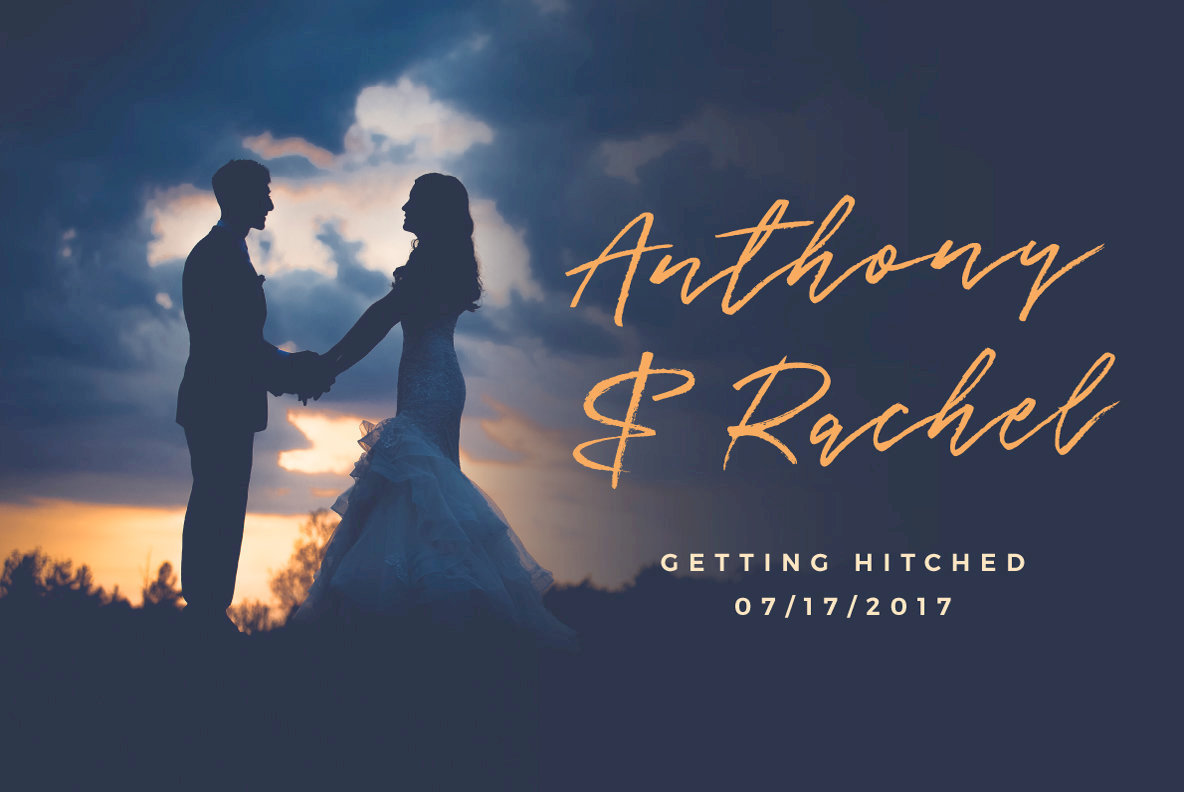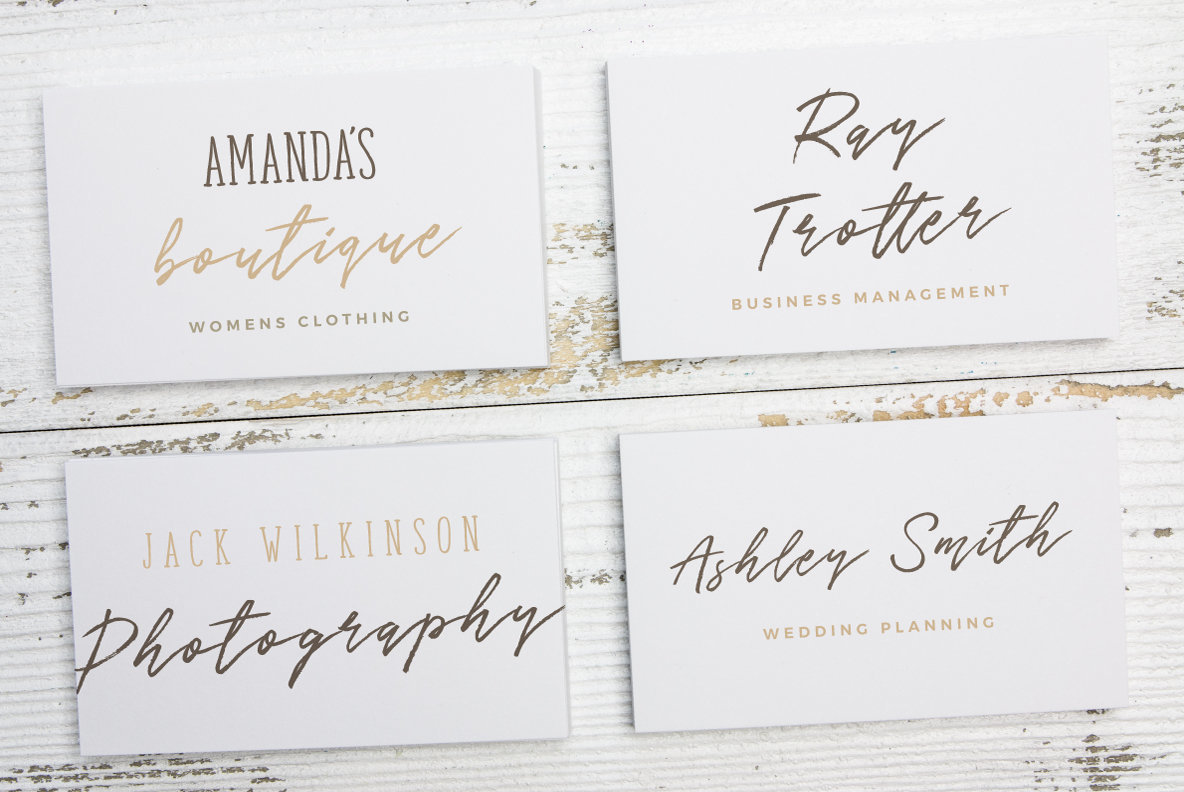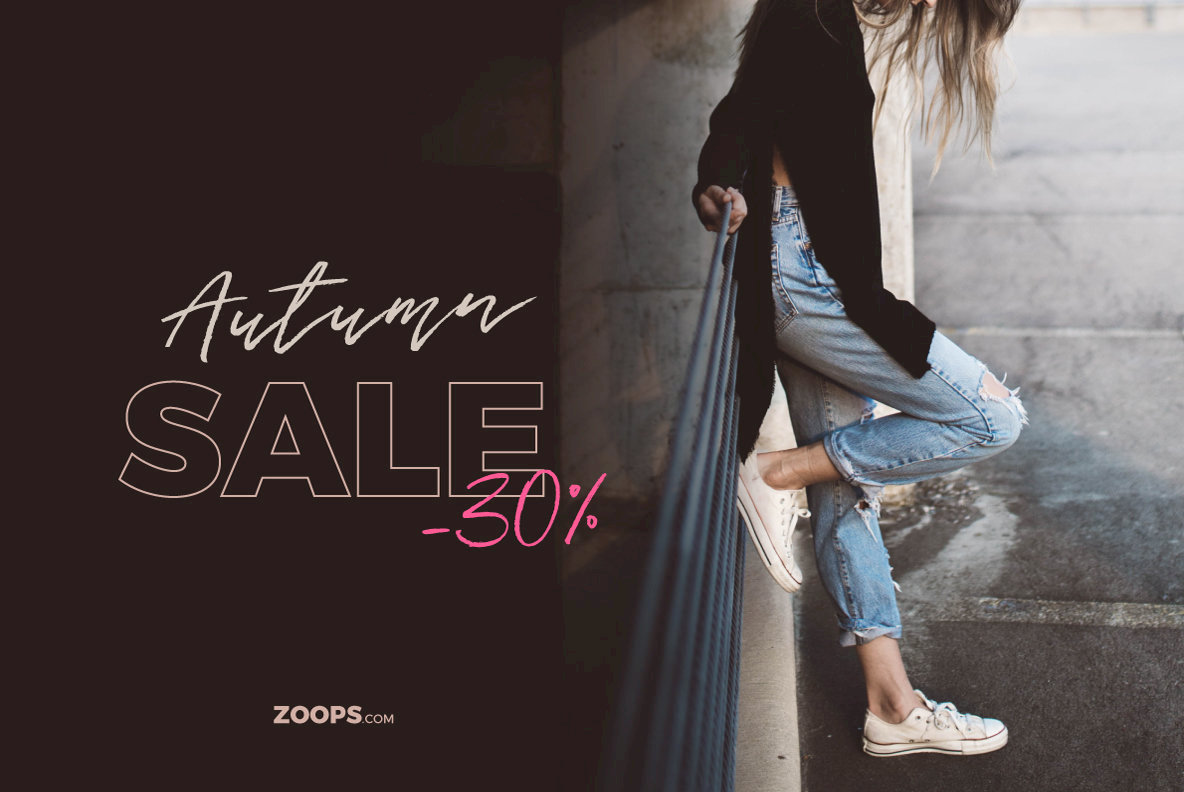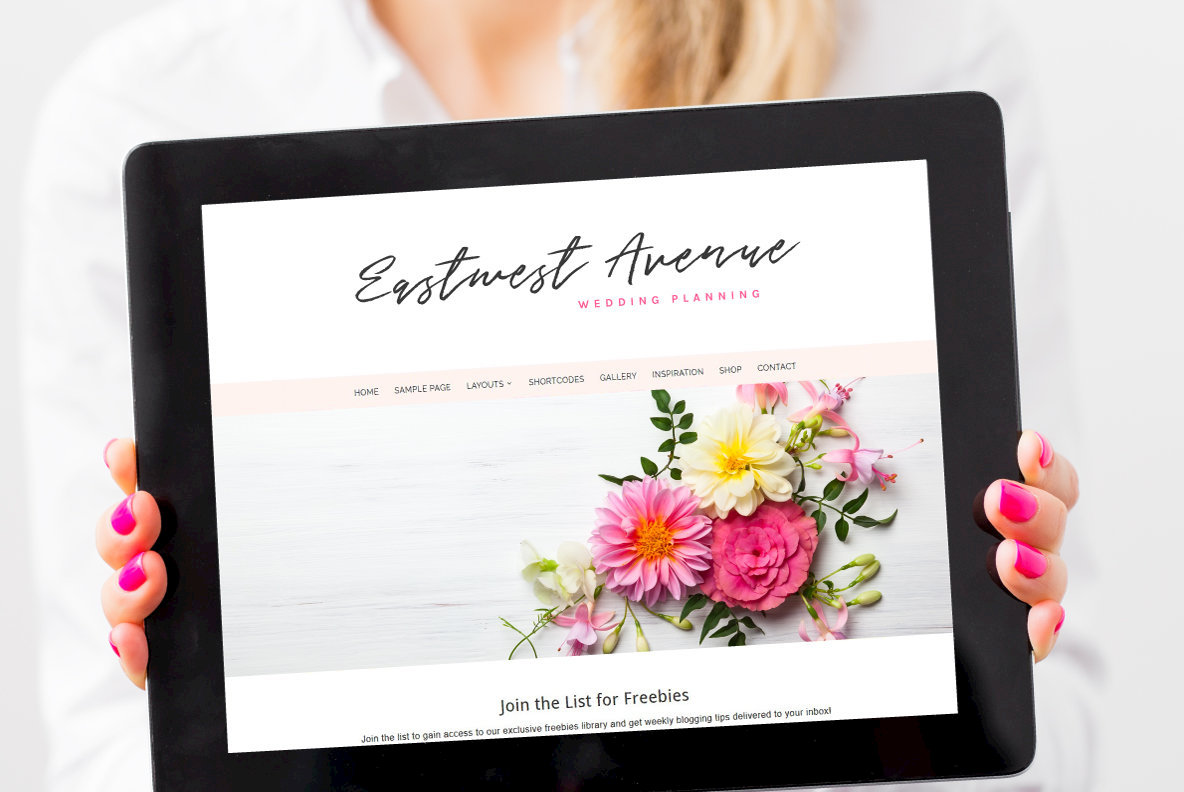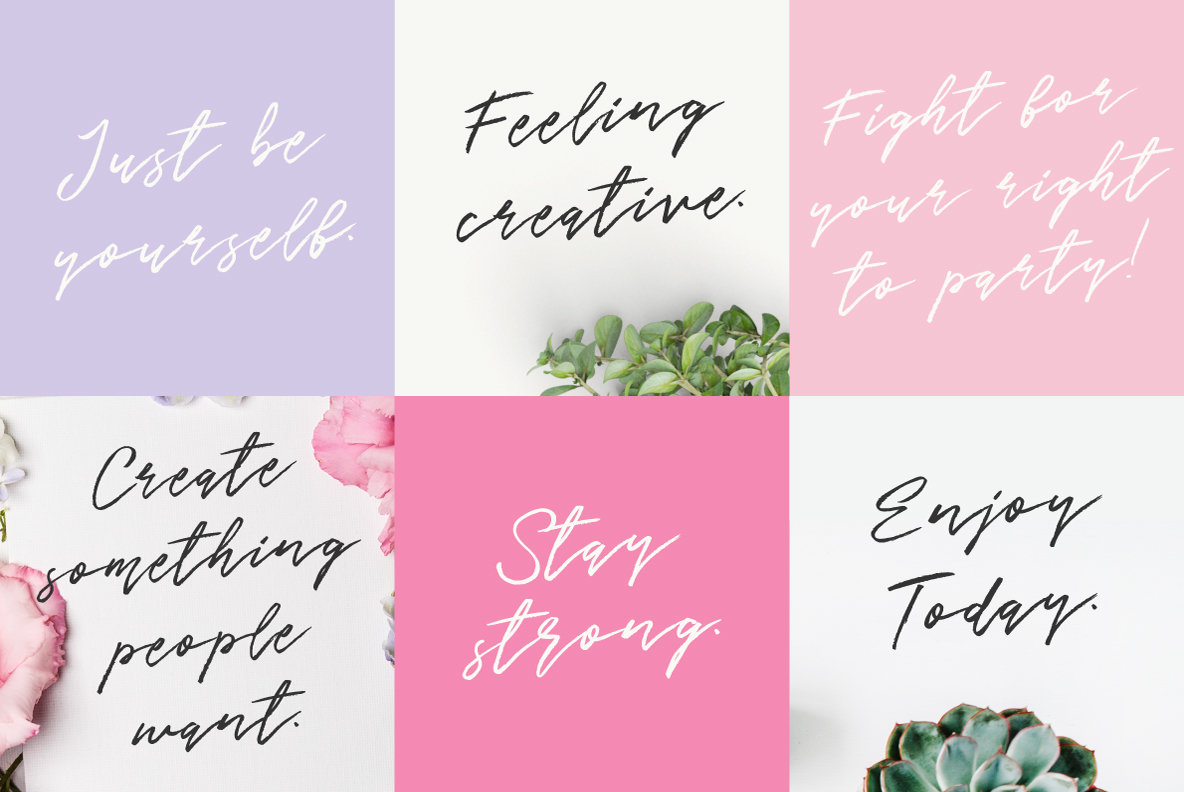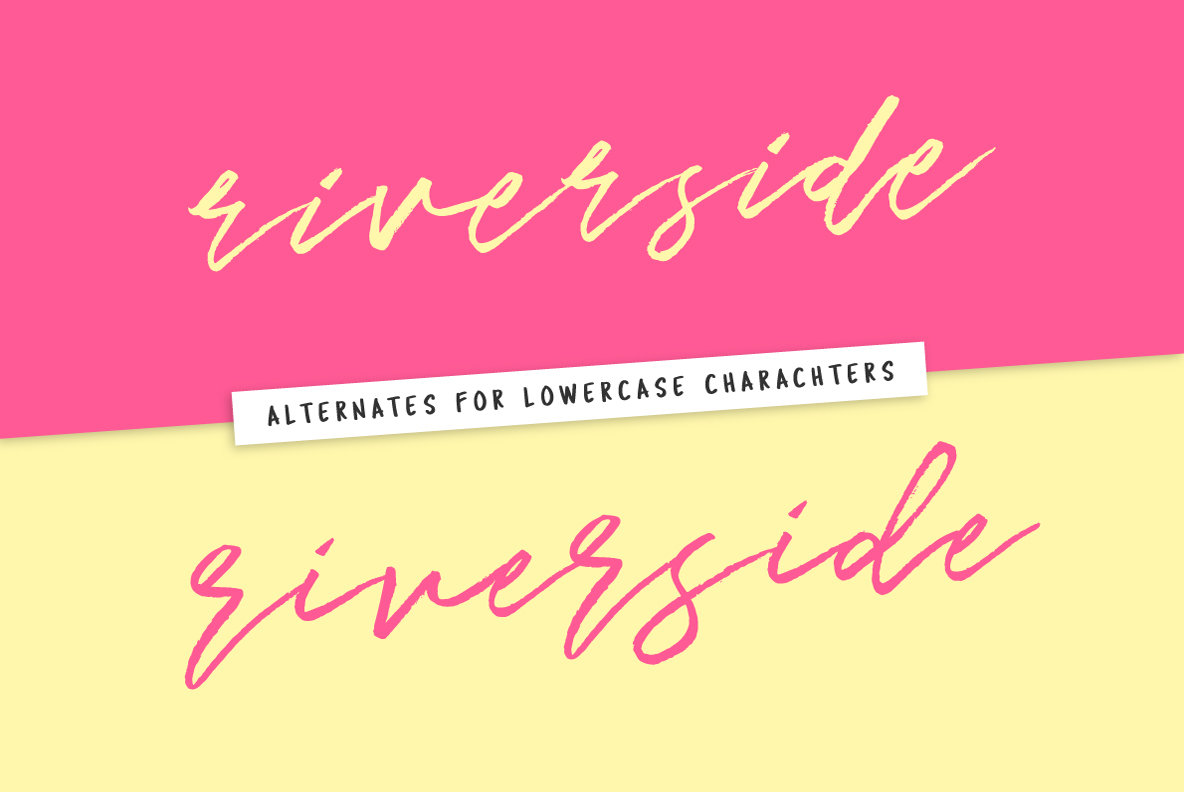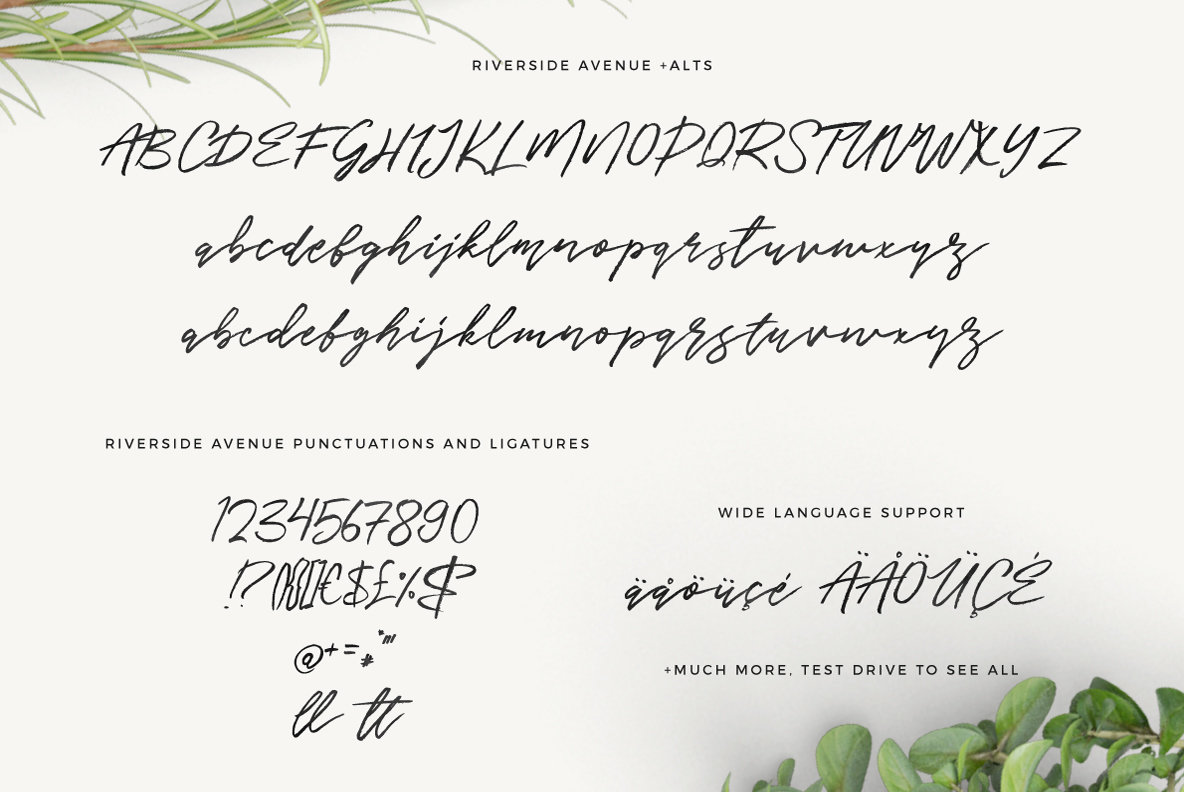
Riverside Avenue Font
Riverside Avenue is a hand brushed font made with Pentel brush pen. It's authentically hand lettered in my studio with love! The pack includes alternates for lowercase characters to make it look like freshly hand written. Designed to work perfectly in multiple designs like wedding invitations, website logos, Instagram posts and many many more